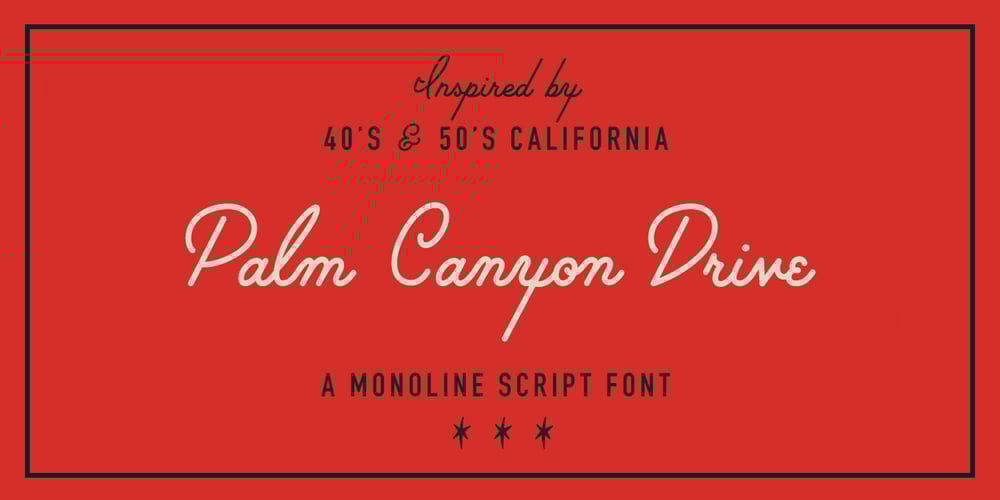
Palm Canyon Drive
Palm Canyon Drive font
Palm Canyon Drive Font Family was designed by Amy Hood and published by RetroSupply Co.. Palm Canyon Drive contains 6 styles and family package options. Mid-century California was a magical place. Post-war optimism fueled the popularity of everything from Hollywood to roadside diners. Palm Canyon Drive is a monoline script inspired by retro matchbook covers, travel postcards, Tiki bars and Hollywood. With a classy yet unpretentious tone Palm Canyon Drive is as comfortable on a Tiki bar matchbook cover as it is on a Hollywood movie poster.